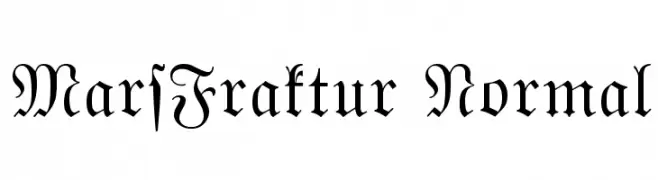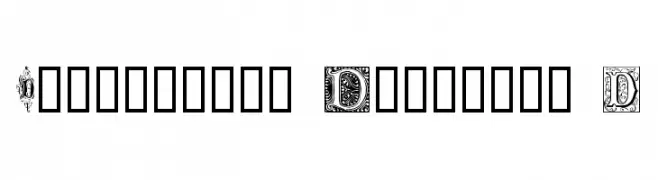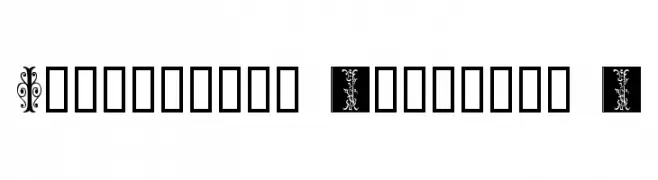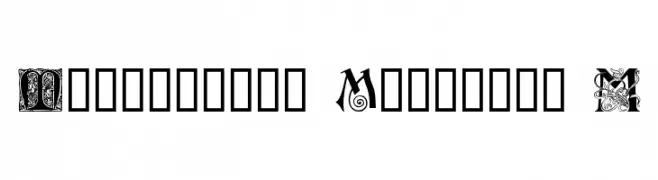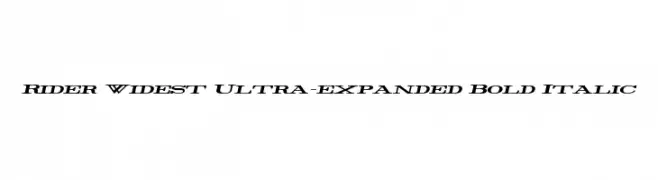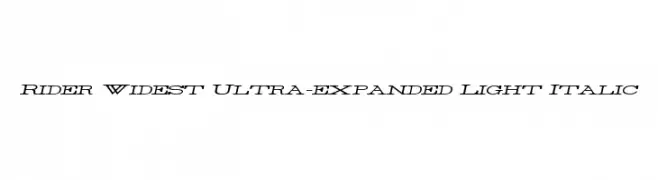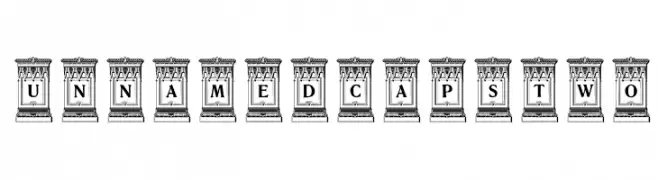
A bold, ultra-expanded italic font with a modern and dynamic style.
An ultra-expanded, light, and italicized font with a grand and dynamic style.
A traditional blackletter font with ornate and angular letterforms.
An elegant, flowing cursive font with intricate flourishes and decorative appeal.
An ornate and decorative font with intricate designs and a vintage appeal.
An ornamental font with intricately designed initials in a classic, decorative style.
A decorative font with ornate, vintage-style initials.
An ornate and decorative font with intricate designs and embellishments.